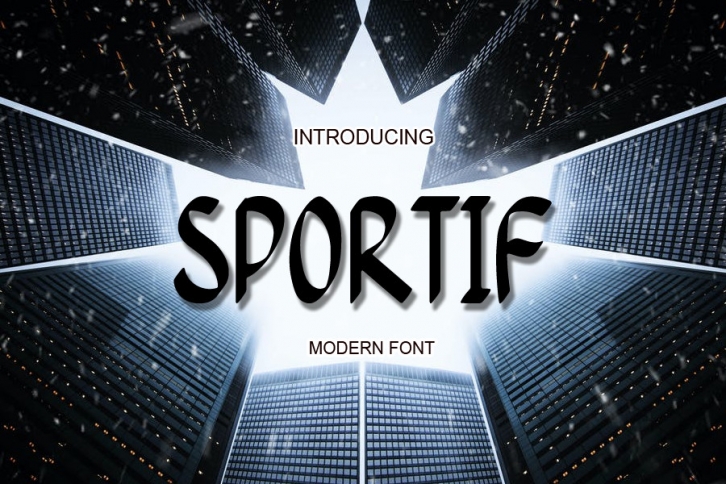
Sportif is a cool, modern and adaptable display font. Whatever the topic, this font will be a wonderful asset to your font library, as it has the potential to enhance any creation.